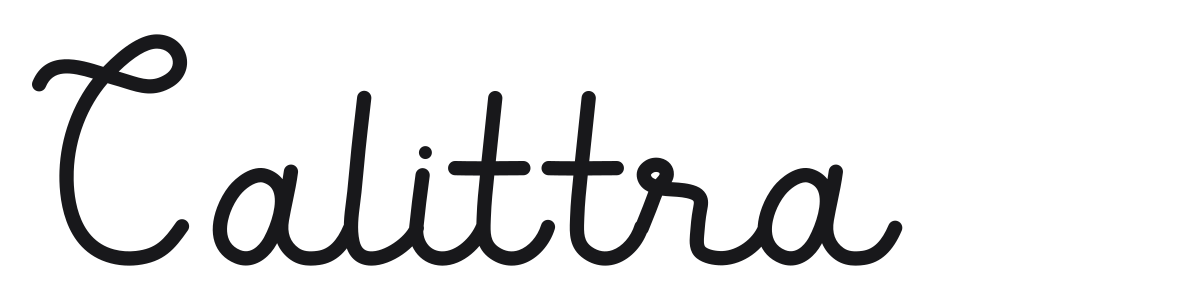
Calittra
by Hizrian
Calittra is a flowing monoline cursive script with a casual, hand-drawn personality. Every letter connects in a continuous ribbon with rounded terminals and looping strokes that feel personal without being sloppy. It sits naturally on packaging, logotypes, and anywhere a friendly, approachable tone is needed.